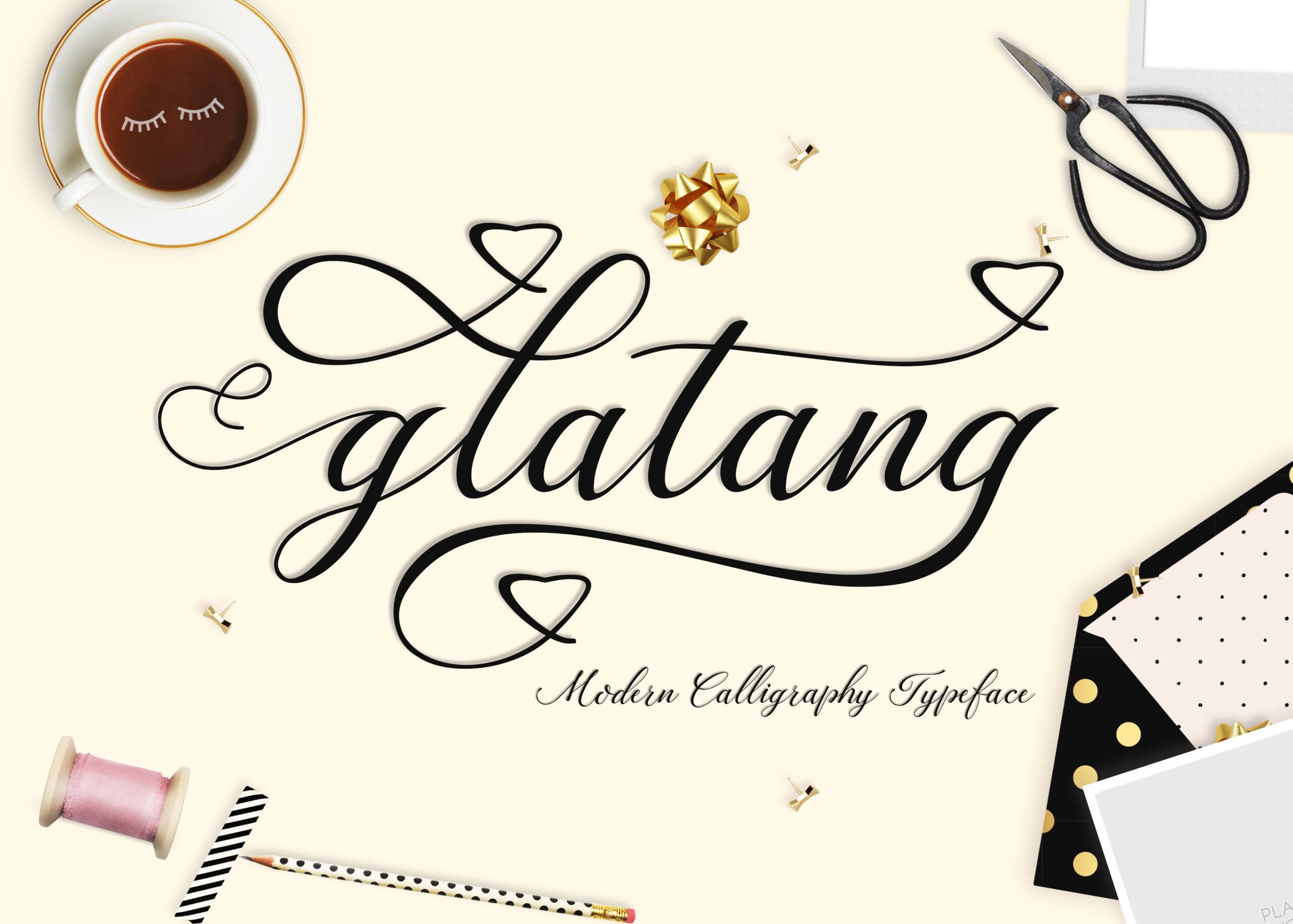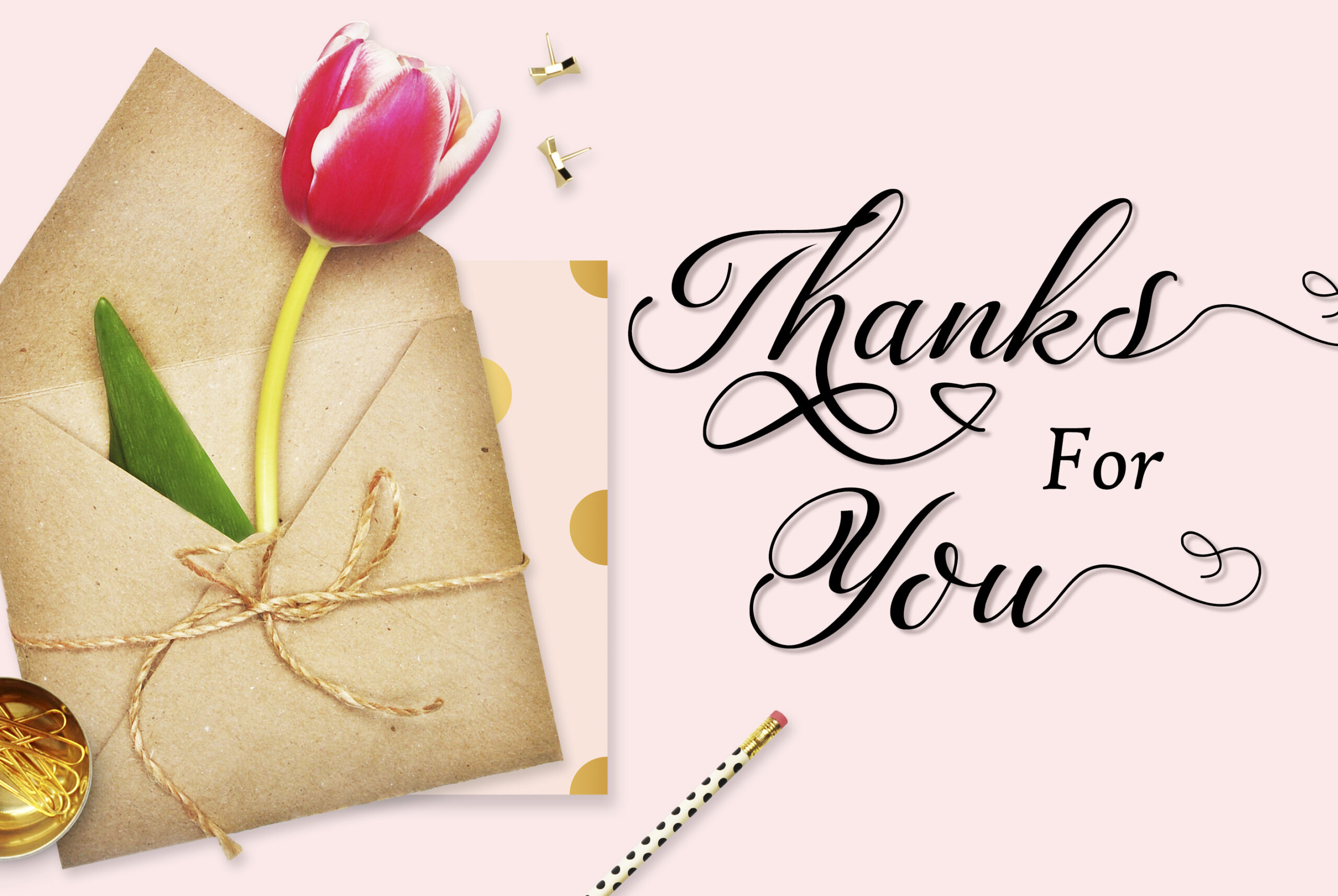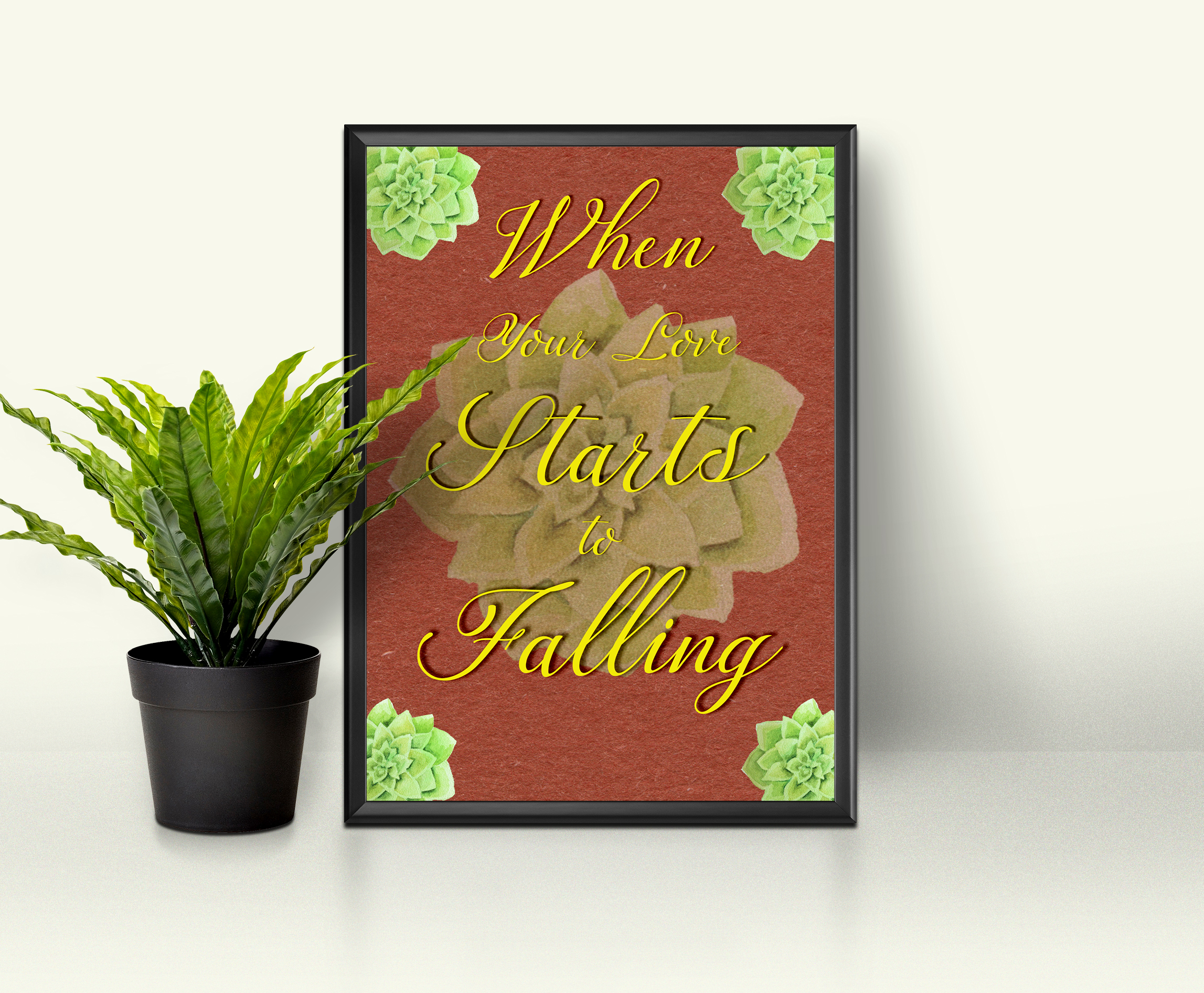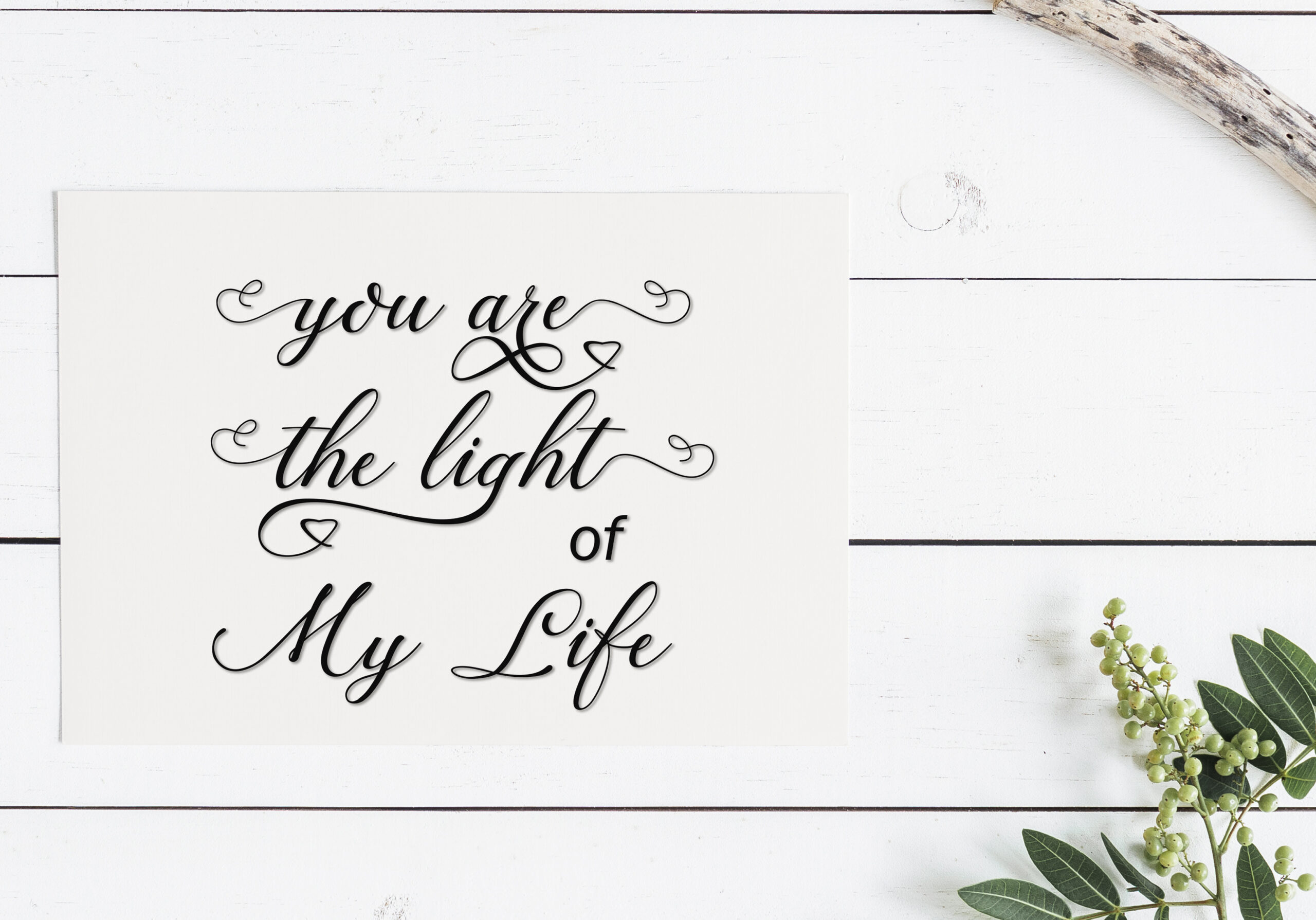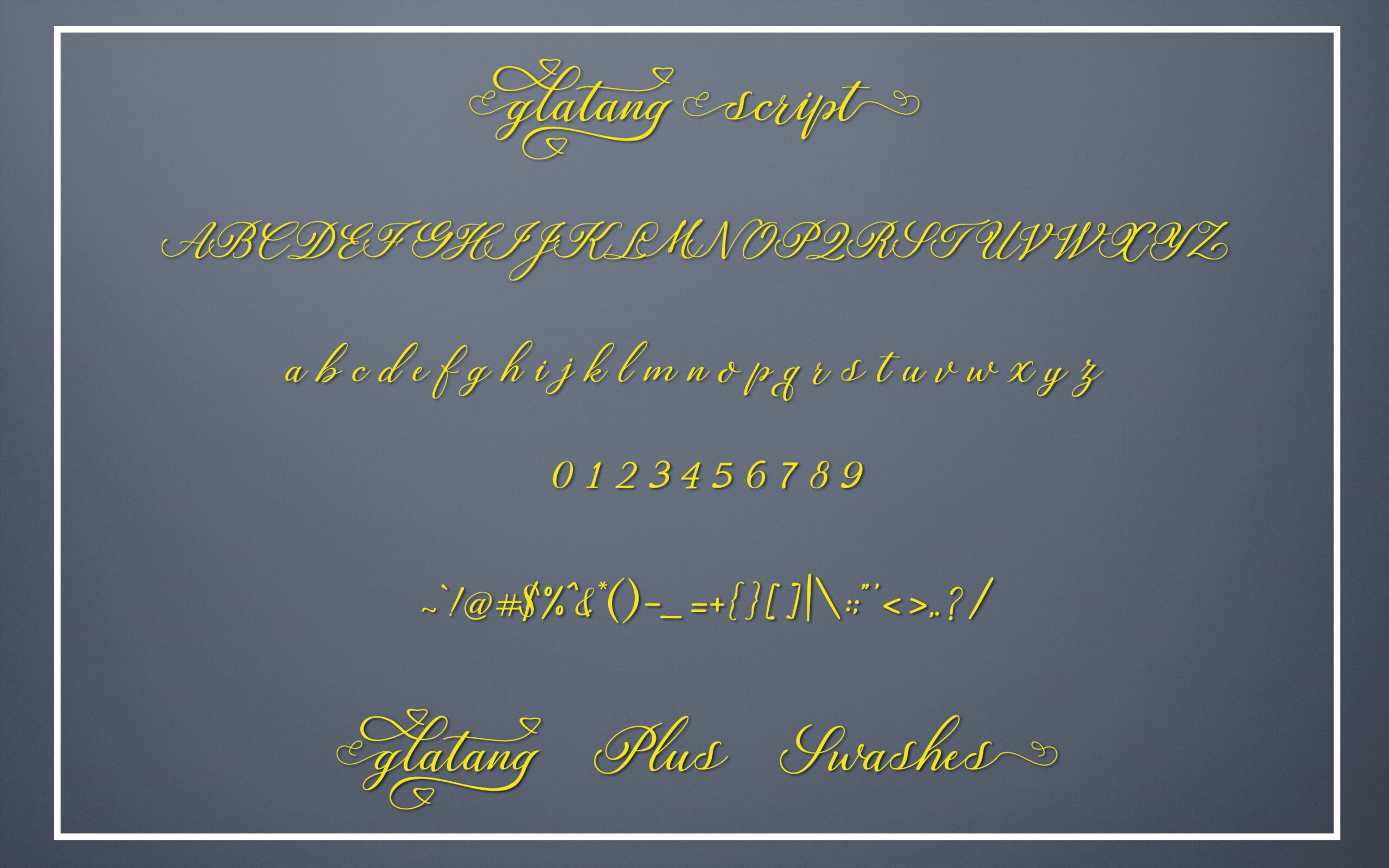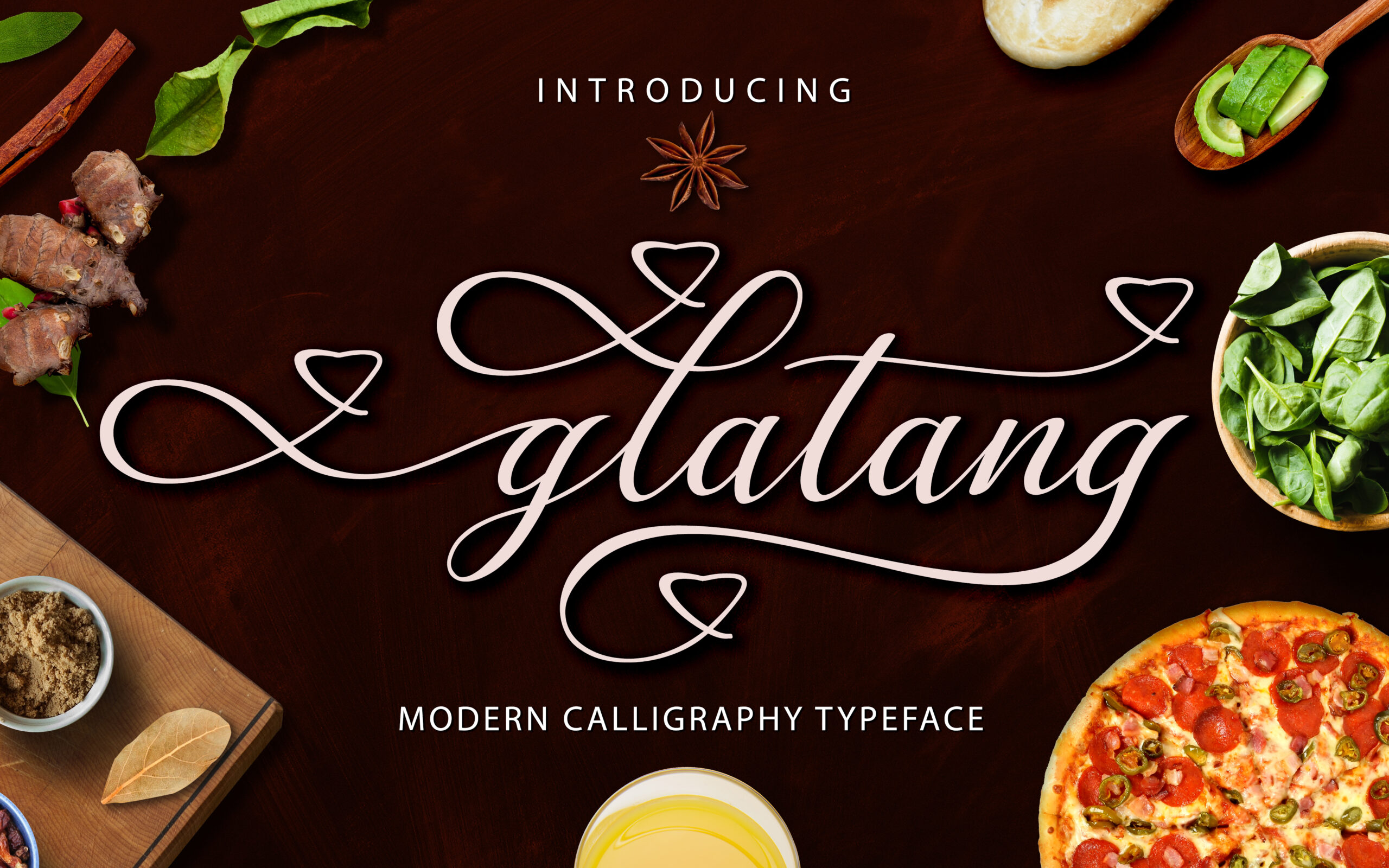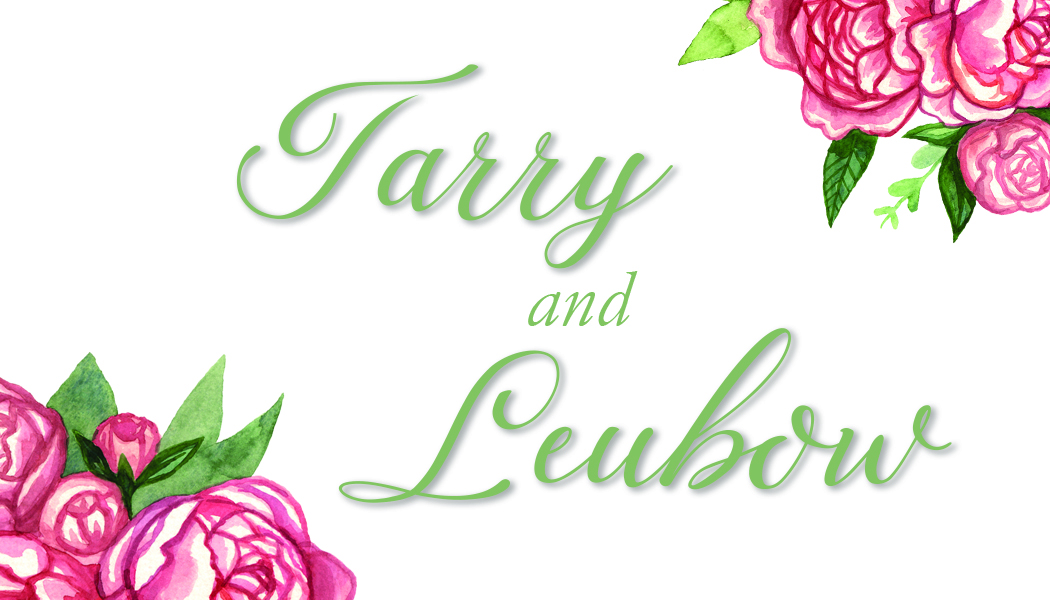
About Glatang Script Font
Glatang is a willowy script style that toes the line between classic and modern sensibility. Filled with carefully considered flourishes, Glatang is a neat font that keeps your text looking beautiful and clean.
Suitable for a number of projects, Glatang is a wonderful script to consider for your next design.